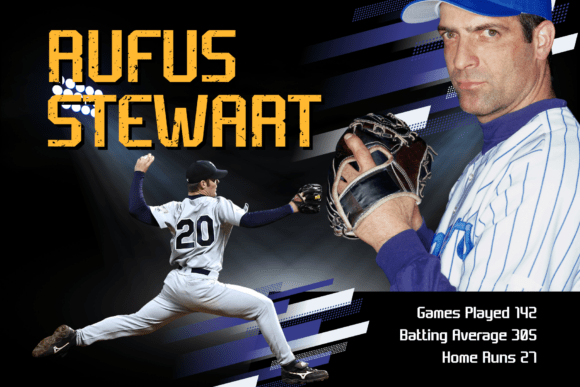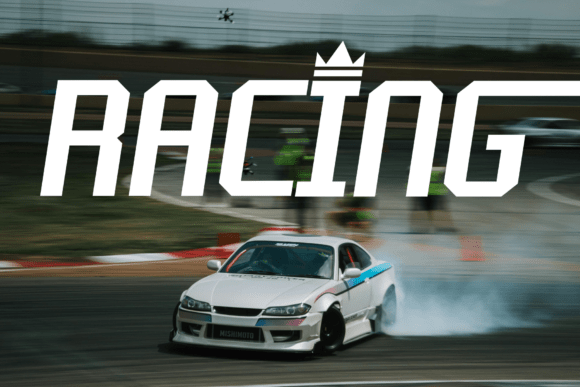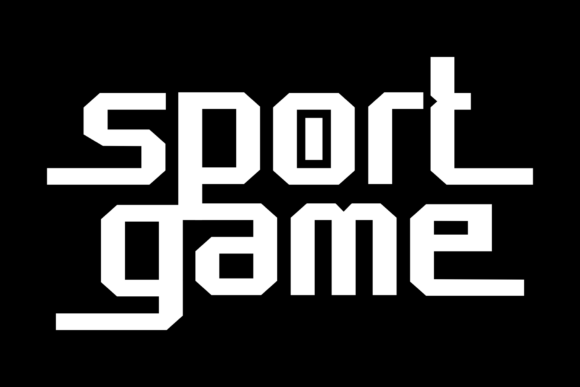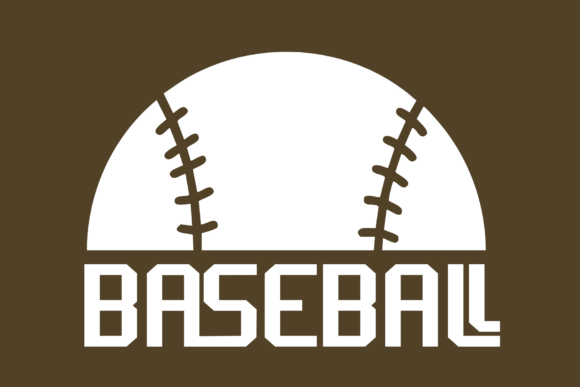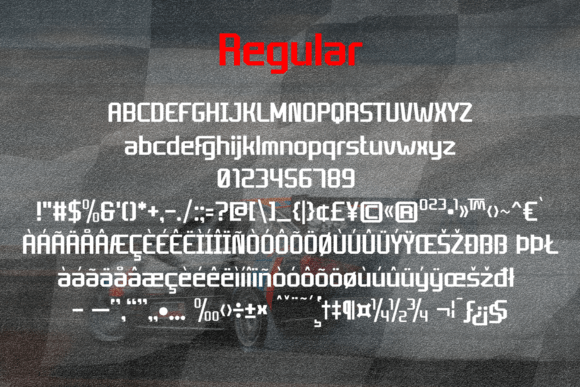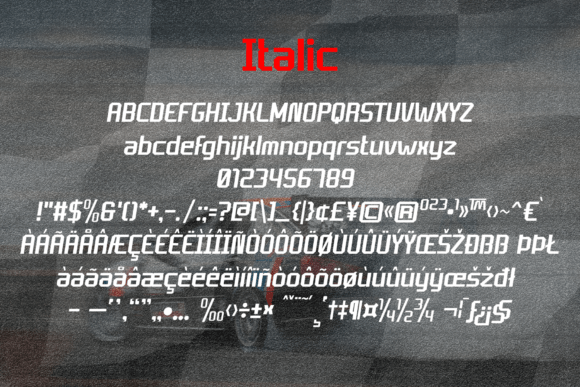
Step Up Your Game with the Champion Athletic Font
Have you ever been in a moment of pure creative bliss, where the perfect font suddenly pops into your mind and brings your design to life? For us, it’s the thrill of the game, the rush of adrenaline, and the unbridled energy of America’s favorite pastime that sparks our imagination. And that’s exactly what inspired the creation of the Champion Athletic Font – a typeface that embodies the spirited aesthetics of sports and the nostalgia of a bygone era.
This bold, retro-chic font is the perfect companion for designers looking to add a dynamic twist to their projects. Whether you’re crafting team jerseys, designing sports-themed logos, or promoting events, the Champion Athletic Font delivers a vivacious persona that’s sure to captivate your audience. With its robust flair and energy-infused design, this font is a valuable addition to any designer’s toolkit, providing seamless access to its full library of stylistic features through PUA encoding.
Key Features of Champion Athletic Font
- Font Family: Champion Athletic Font is a unique, modern sans-serif font designed for sports and athletic branding.
- Unique Characteristics: Features a bold, athletic feel with customized letterforms and subtle texture, making it ideal for sports-related branding and design.
Champion Athletic Font Review
As a designer, I’ve had the chance to work with the Champion Athletic Font, and I’ve got some thoughts to share.
The Champion Athletic Font is designed to evoke a sense of sportsmanship and energy. I love how it looks on a billboard or a stadium sign – it’s bold, eye-catching, and really gets the message across. The font is also highly customizable, with a range of weights and styles to choose from.
- Perfect for sports and fitness brands
- Customizable weights and styles
- Highly legible in large sizes
While the Champion Athletic Font is great for bold, attention-grabbing headlines, it can be a bit overwhelming in smaller sizes. Additionally, the font’s boldness can make it difficult to read in certain contexts, such as on a crowded website or in a long block of text.
- May be overwhelming in smaller sizes
- Difficult to read in crowded contexts
The Champion Athletic Font is a solid choice for designers looking to create bold, attention-grabbing headlines. While it may have some limitations, it’s a great option for sports and fitness brands looking to make a statement.
The Champion Athletic Font is ideal for sports-themed designs, such as team logos, athletic wear, and sports equipment branding.
It’s also great for creating energetic and motivational graphics for fitness and wellness-related projects.
Does Champion Athletic Font support ligatures and contextual alternates?
Yes, Champion Athletic Font supports ligatures and contextual alternates. These features are enabled by default, and they enhance the font’s readability and aesthetic appeal. However, if you’re using the font in a specific design context where ligatures or contextual alternates are not desired, you can disable them in your design software or font settings.